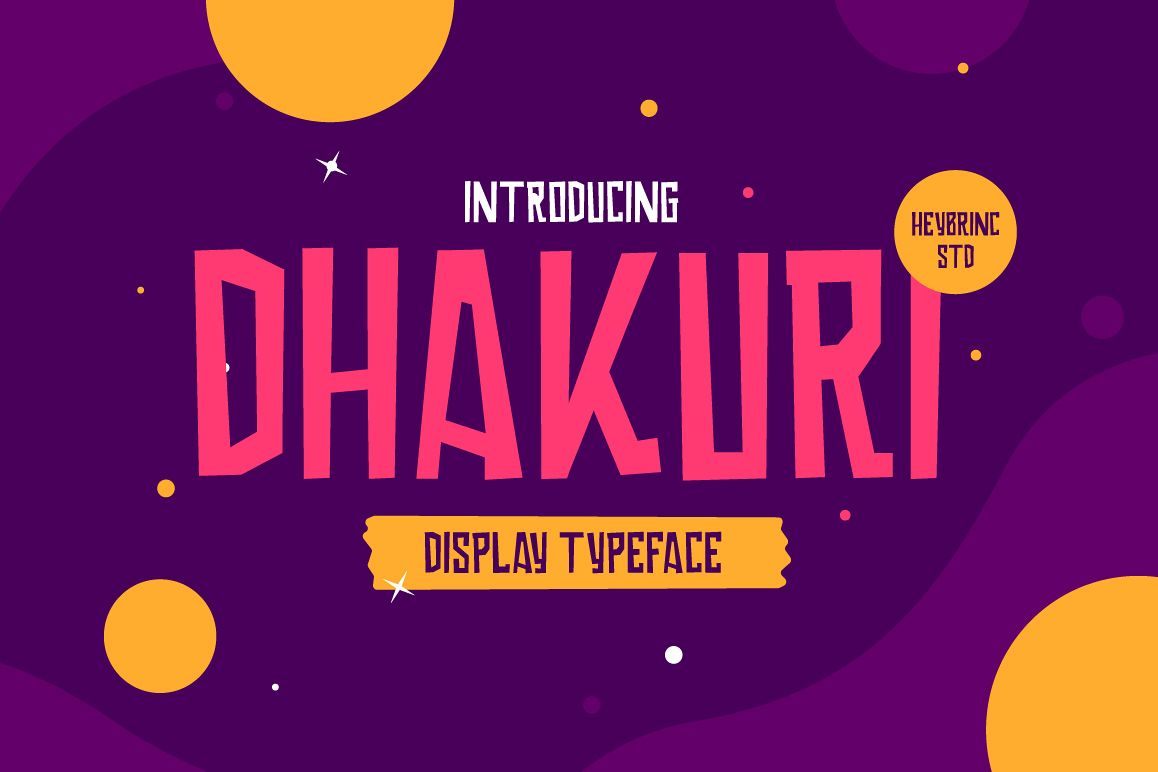
Dhakuri
Dhakuri is all caps Display Typeface.  Suitable for children book, cartoon illustration, posters, logos, and everything that needs a little touch of cute and fun. So, what are you waiting for? Buy now and start playing around with Dhakuri!